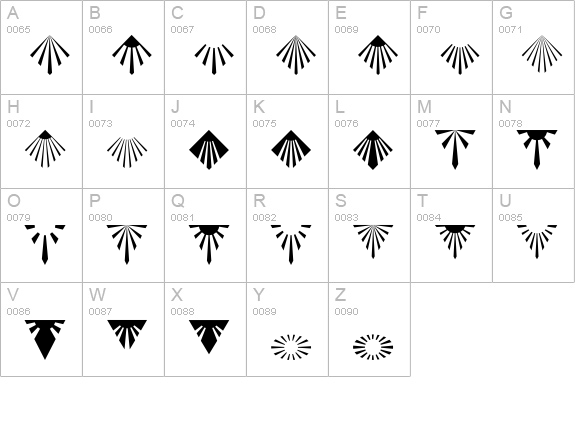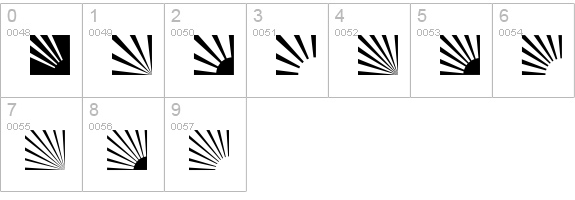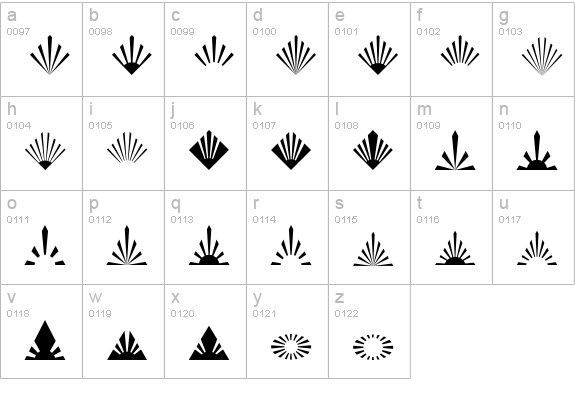
AltemusRays Font Details
AltemusRays is a stunning and versatile font that exudes elegance and sophistication. With its intricate design and unique flair, this font is perfect for a wide range of creative projects, from branding to editorial design. The graceful curves and sharp angles of AltemusRays make it a standout choice for those looking to make a statement with their typography. The best part? AltemusRays is completely free to download at FontsMarket.com! Now you can elevate your designs with this exquisite font without breaking the bank. Whether you're working on a sleek logo, a stylish poster, or a captivating website, AltemusRays is sure to add a touch of class and charm to your project. Download it today and unleash your creativity with this exceptional typeface.